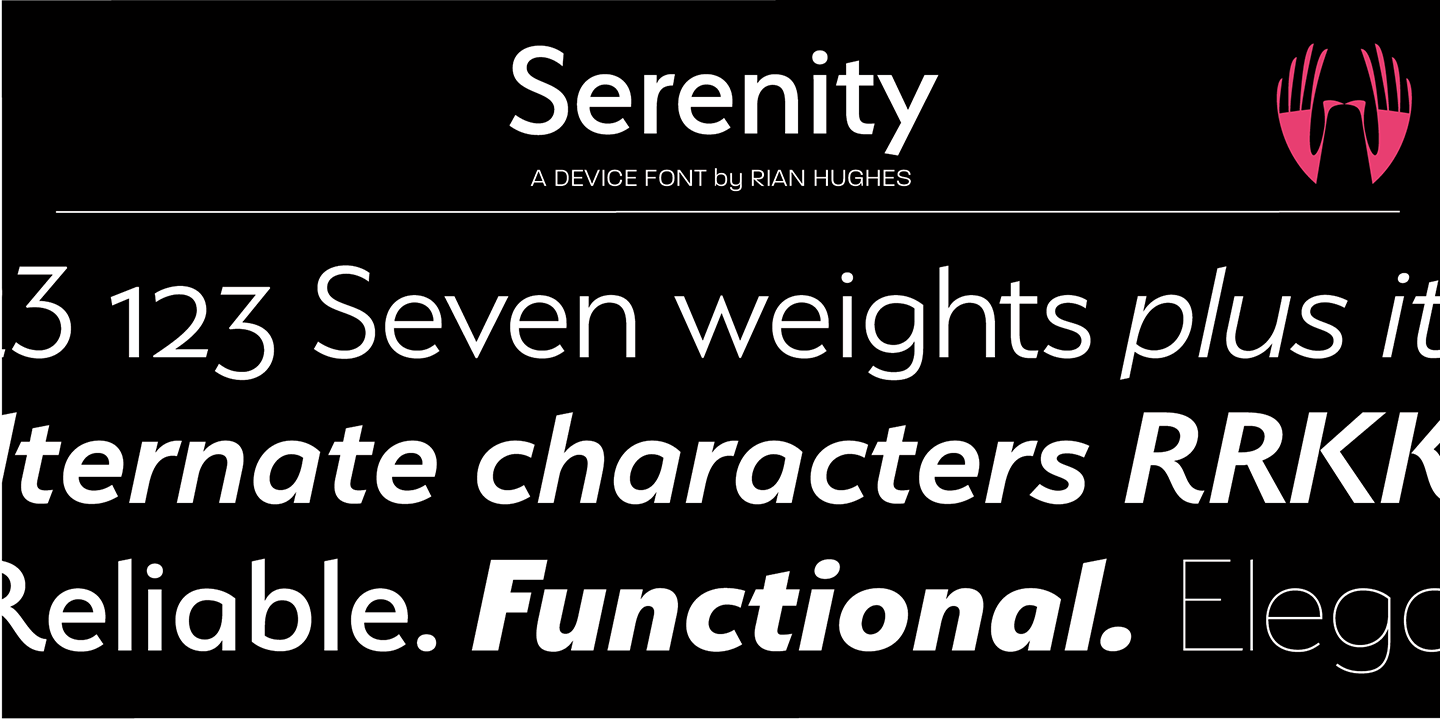
Serenity Font is a beautifully graceful and calming typeface, perfect for designs that aim to convey peace, elegance, and a gentle, inviting aesthetic. Its often delicate strokes, harmonious curves, and open forms create a sense of lightness and tranquility, making it an excellent choice for wellness and spa branding, yoga studio websites, spiritual and mindfulness content, and organic product packaging. Imagine it gracing the logo of a meditation app, providing a soothing feel for boutique hotel collateral, or adding a serene touch to event invitations for calming retreats. This font is also superb for bridal stationery, children's book illustrations (for gentle themes), and any project where a refined, approachable, and aesthetically pleasing visual identity is key. It doesn't just display text; it breathes an atmosphere of peace and delicate beauty.
What makes Serenity Font so exciting is its remarkable ability to evoke a sense of quietude and effortless elegance. It possesses a distinctive charm that feels both classic and ethereal, creating a unique visual appeal that stands out from more rigid or overtly bold typefaces. This characteristic makes it a fantastic choice for designers looking to infuse their projects with a sense of sophisticated calm and understated artistry. It’s a font that speaks with a soft, gentle voice, making it ideal for brands and content creators who want to convey a message of comfort, harmony, and a truly aspirational aesthetic. Its captivating appeal can make any design feel more inviting and beautifully composed.
The Serenity Font family, given its often artistic and decorative nature, might not feature the extensive range of weights found in more utilitarian typefaces. However, it typically offers different styles or complementary elements that enhance its unique aesthetic and provide creative flexibility. You might find variations such as:
Serenity Regular (the primary elegant style)
Serenity Light (for an even more delicate appearance)
Serenity Bold (for emphasis while maintaining softness)
Serenity Italic (for a flowing, slanted version)
Serenity Script (if a complementary script version is available for stylistic pairing)
Serenity Ornaments/Dingbats (often included as decorative elements like subtle flourishes or natural motifs)